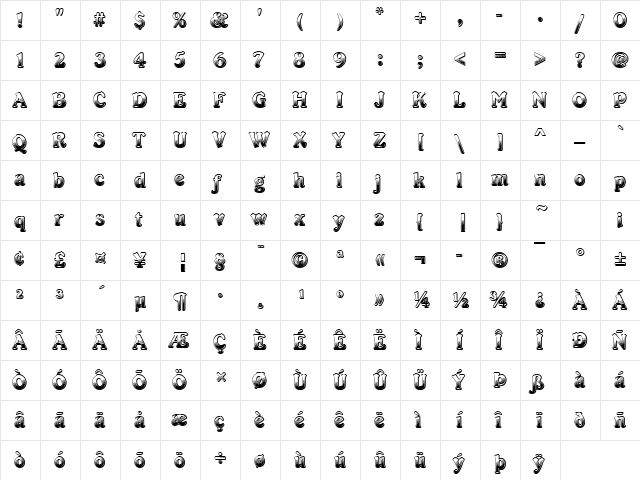
URWCardanusD Regular Font Preview
URWCardanusD Regular
Design Context for URWCardanusD Typeface
URWCardanusD is a composed and adaptable typeface that performs quietly and consistently across a wide range of design contexts.